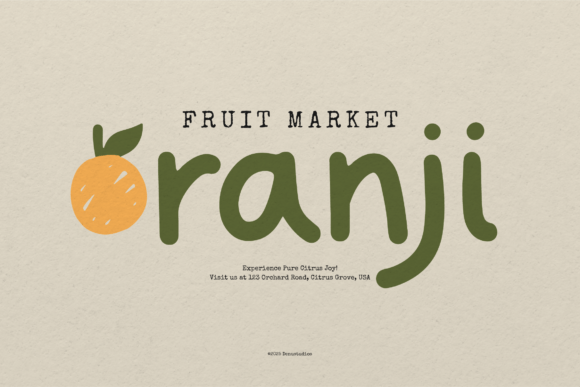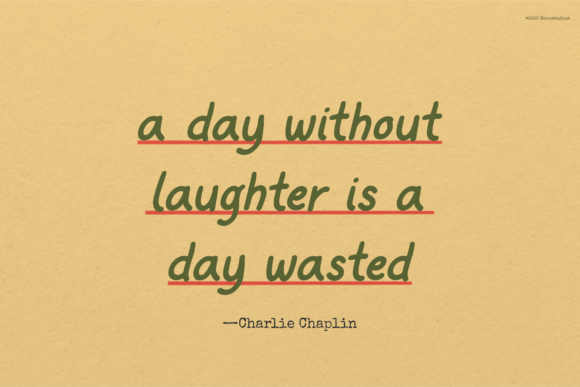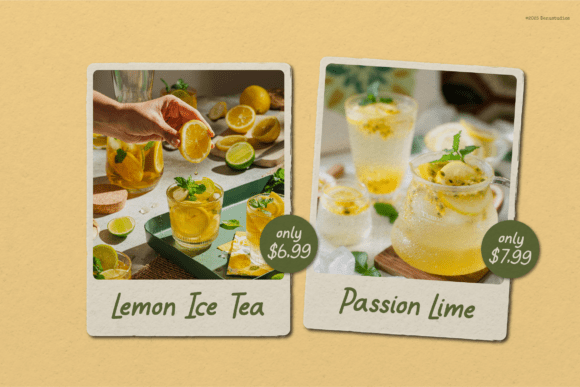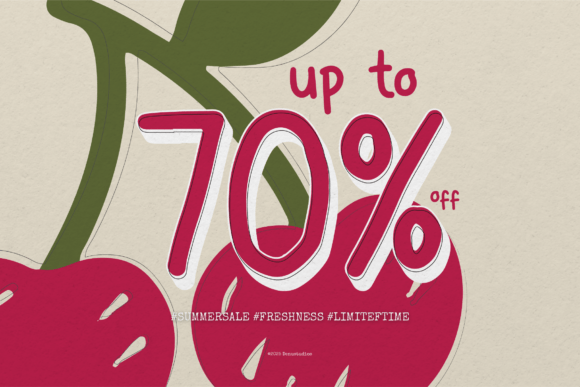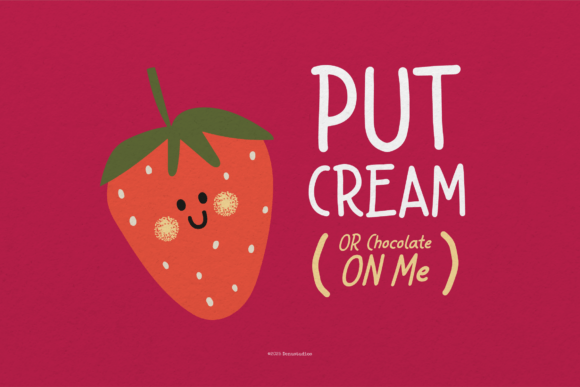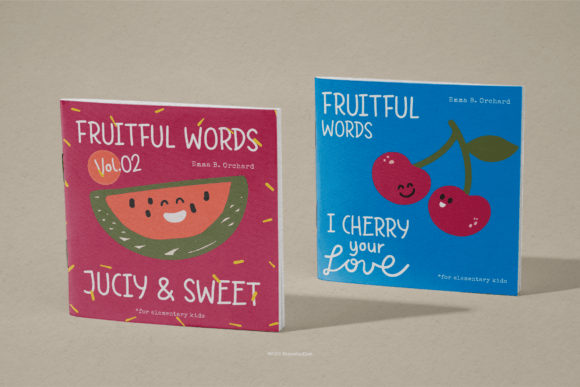
Introduction to Cherry Sugar Font
Sweet, playful, and full of charm, Cherry Sugar is a delightful handwritten font with a fun and friendly vibe.
Its casual strokes and slightly bouncy letters give it a natural and inviting feel, making it perfect for branding, packaging, greeting cards, childrenโs books, and creative projects With over 240 glyphs, extra decorative elements, and multilingual support, this font adds a touch of whimsy to any design.
Key Features of Cherry Sugar Font